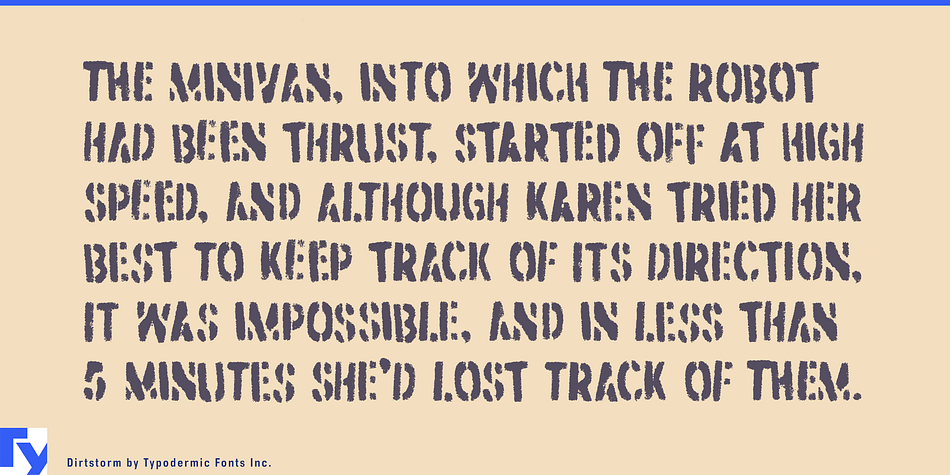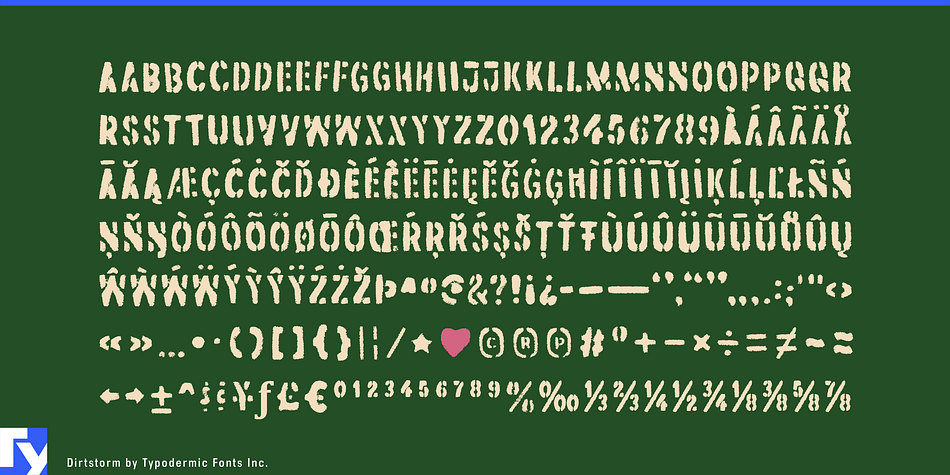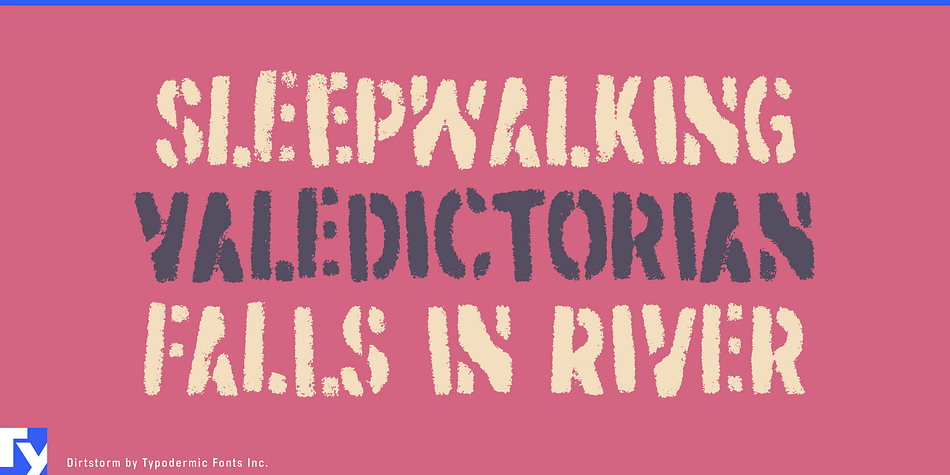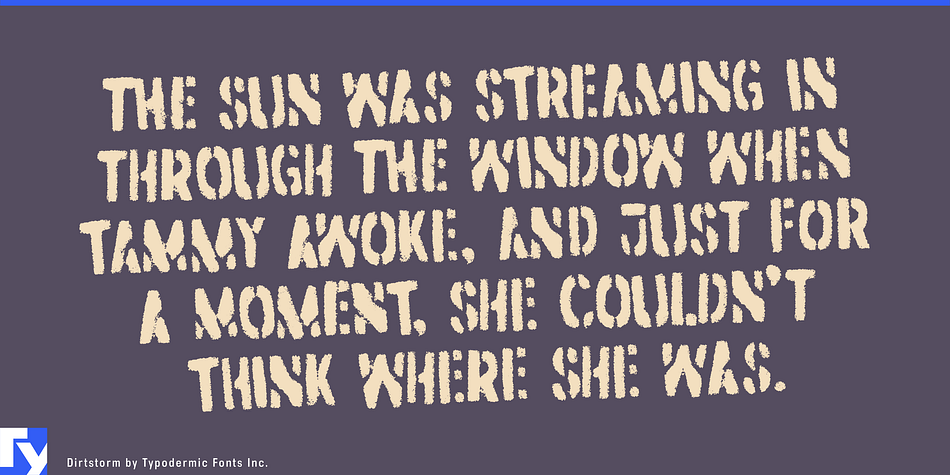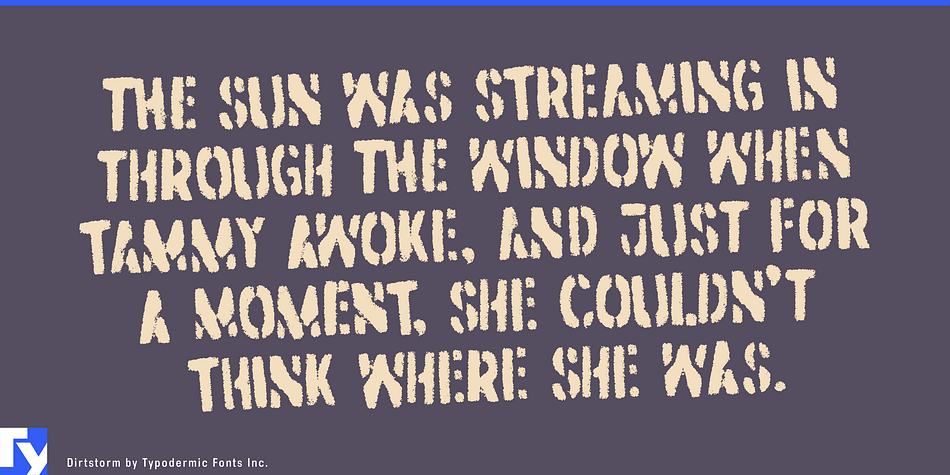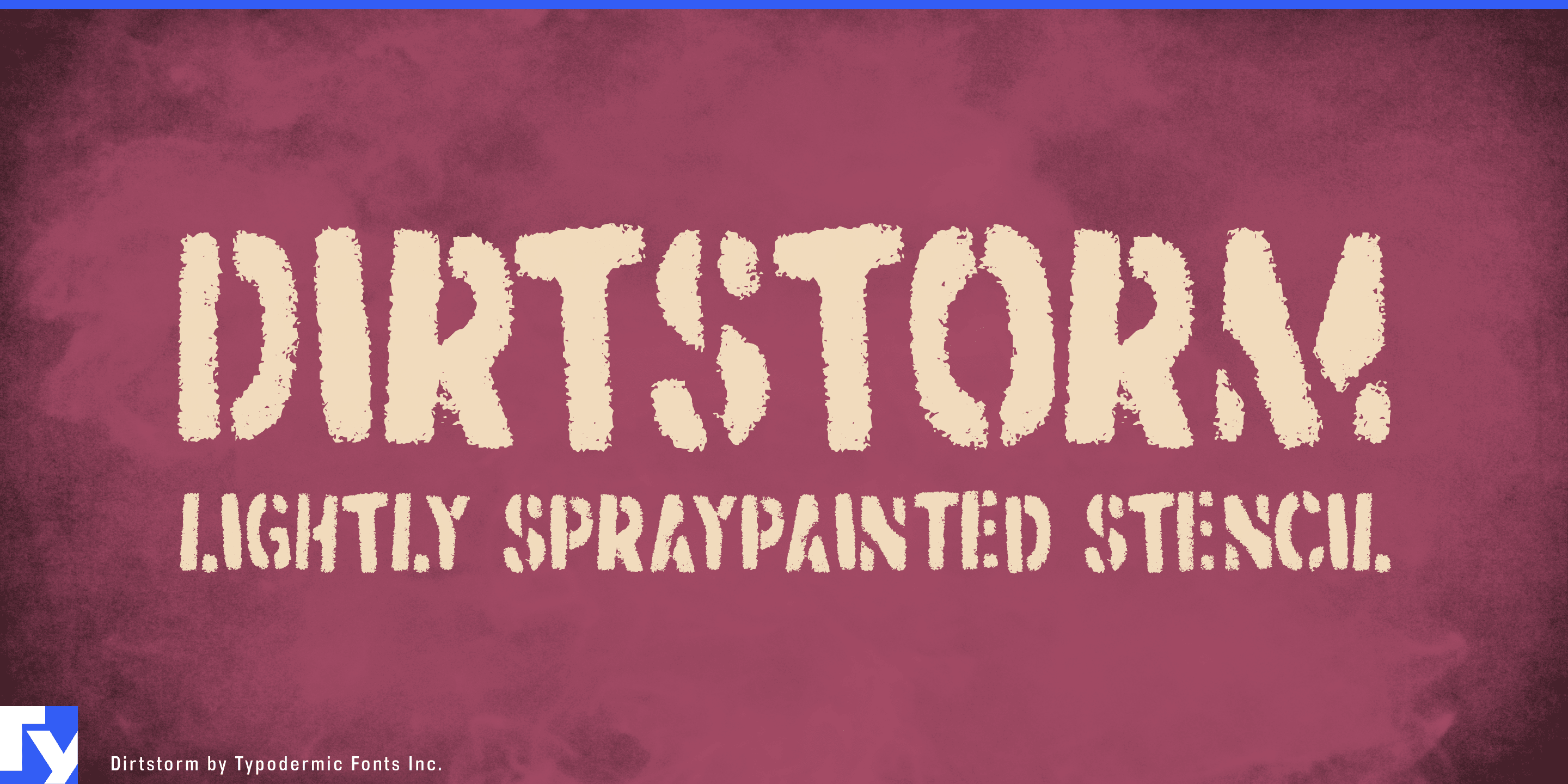
Dirtstorm is a grunge and stencil font published by Typodermic Fonts Inc.
Dirtstorm is a lightly spraypainted stencil font. In OpenType savvy applications, letter pair autoligs help break up the monotony of obviously repeating letters.